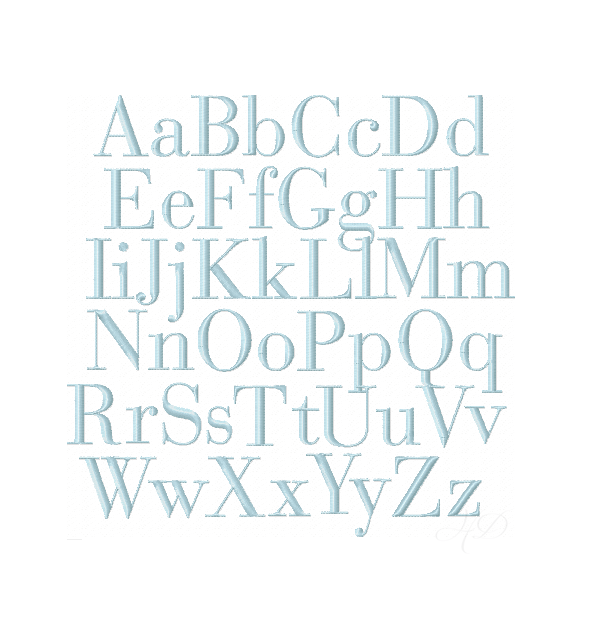
Ryan Satin Stitch Embroidery Font for unique monogramming
Ryan Satin Stitch Embroidery Font
Unleash your creativity with the Ryan Satin Stitch Embroidery Font. This robust monogram type font is designed with exaggerated serifs, making it a standout addition to any crafting project while maintaining a clean, traditional style.